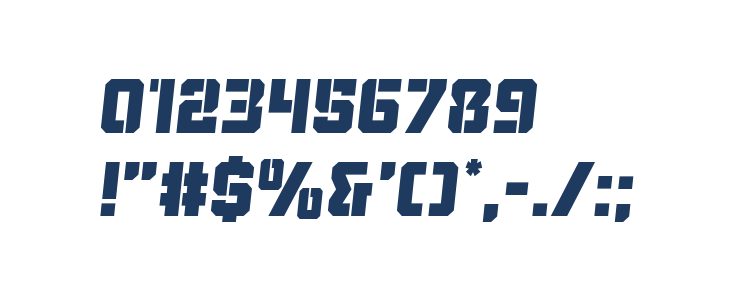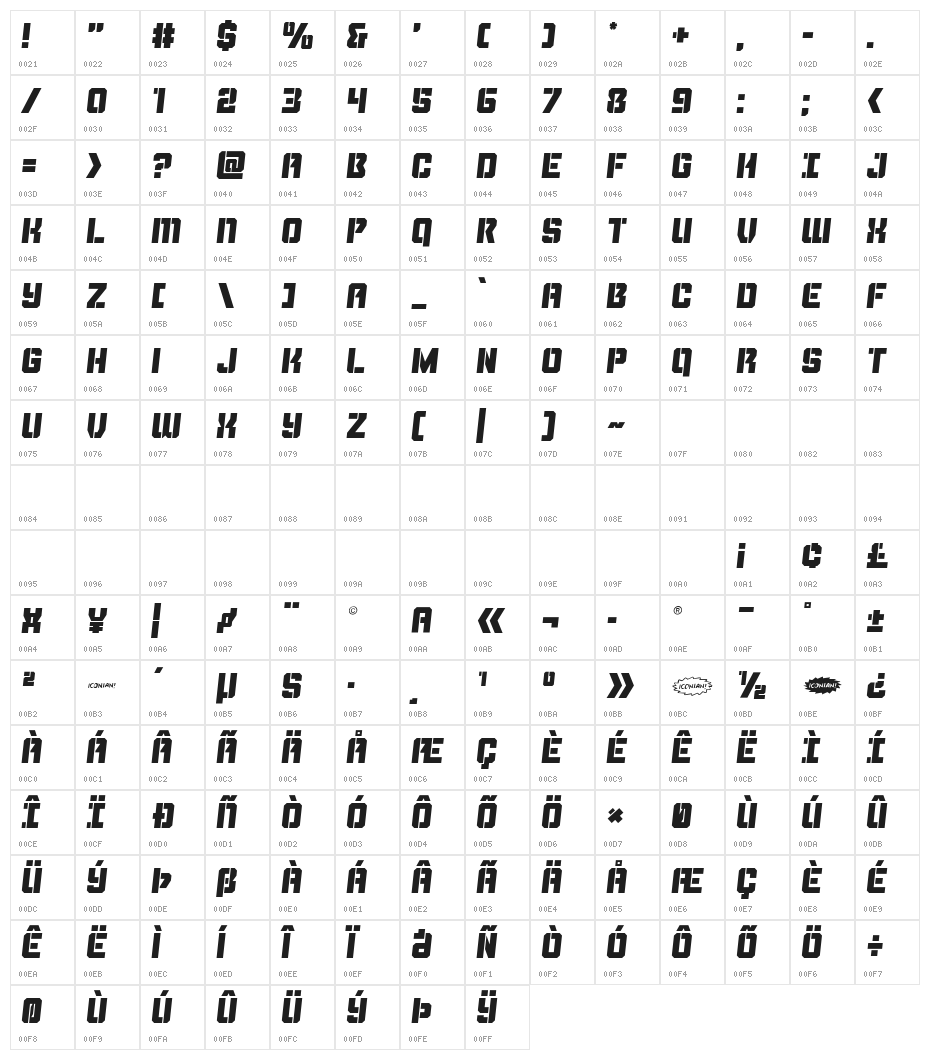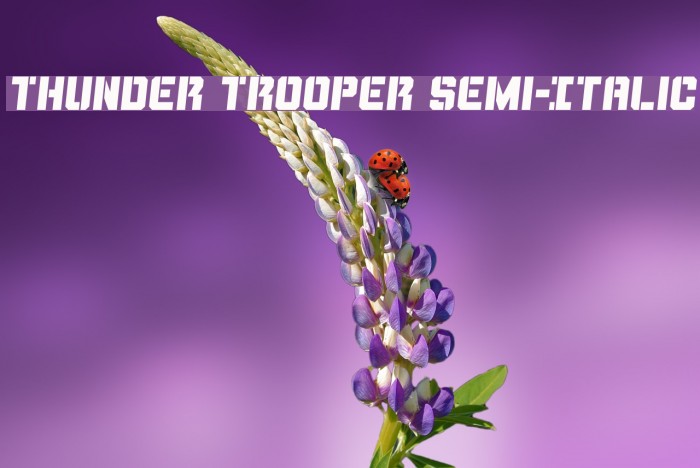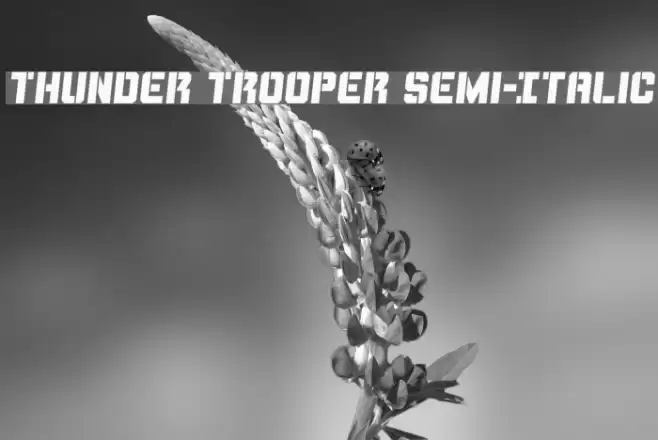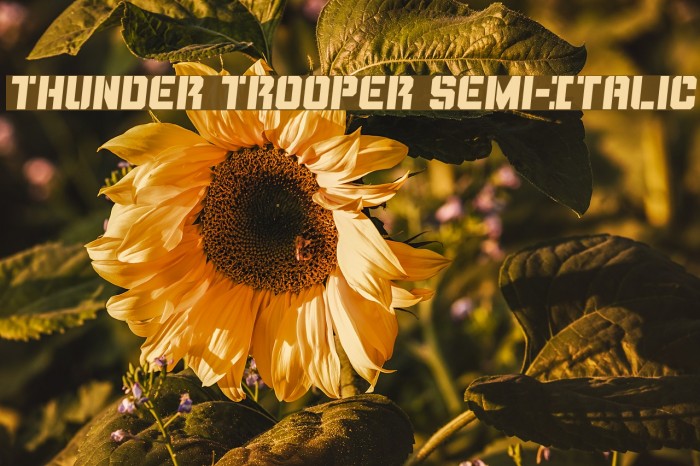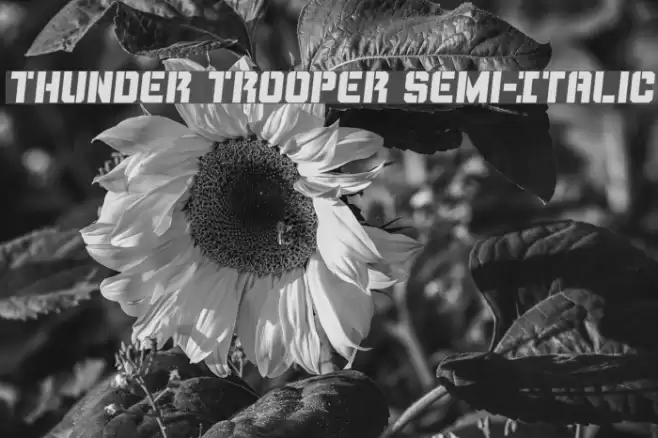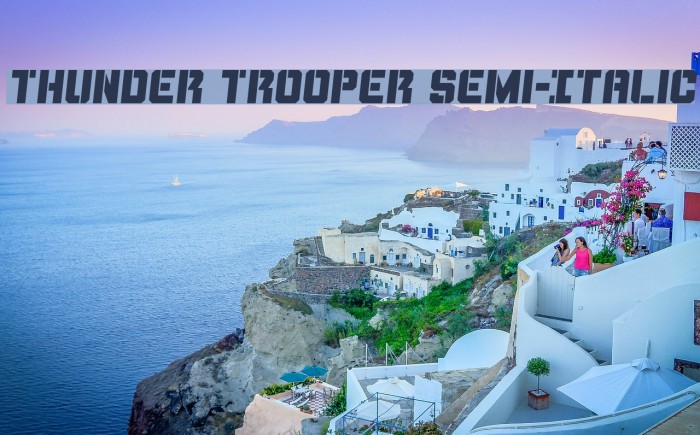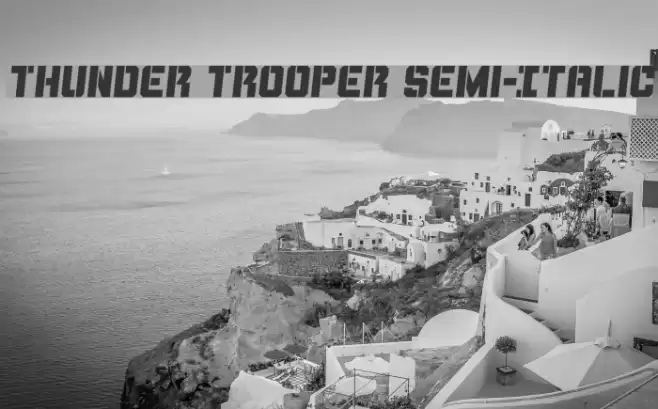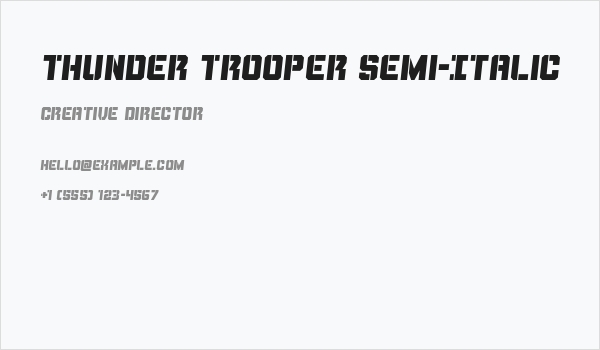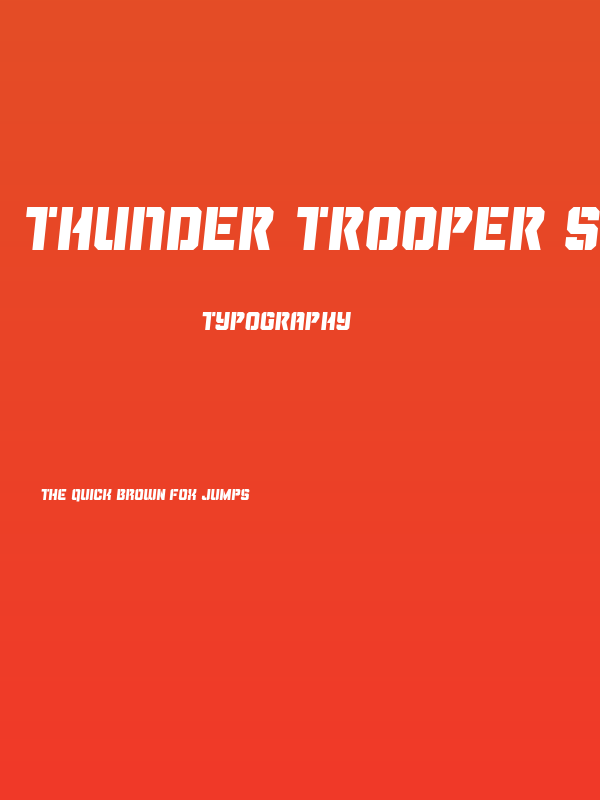
Thunder Trooper Semi-Italic Font
Thunder Trooper Semi-Italic Description
This font features a bold and dynamic style with a semi-italic slant, giving it a sense of movement and energy. The characters are blocky and angular, with sharp edges and a futuristic appearance. The uppercase and lowercase letters maintain a consistent design, emphasizing a geometric structure. Numbers and special characters follow the same bold and angular theme, ensuring uniformity across all glyphs. The font's strong presence makes it ideal for attention-grabbing designs.
| Proposed Projects | Ideal for sci-fi themed projects, video game titles, posters, and branding that requires a strong, modern look. |